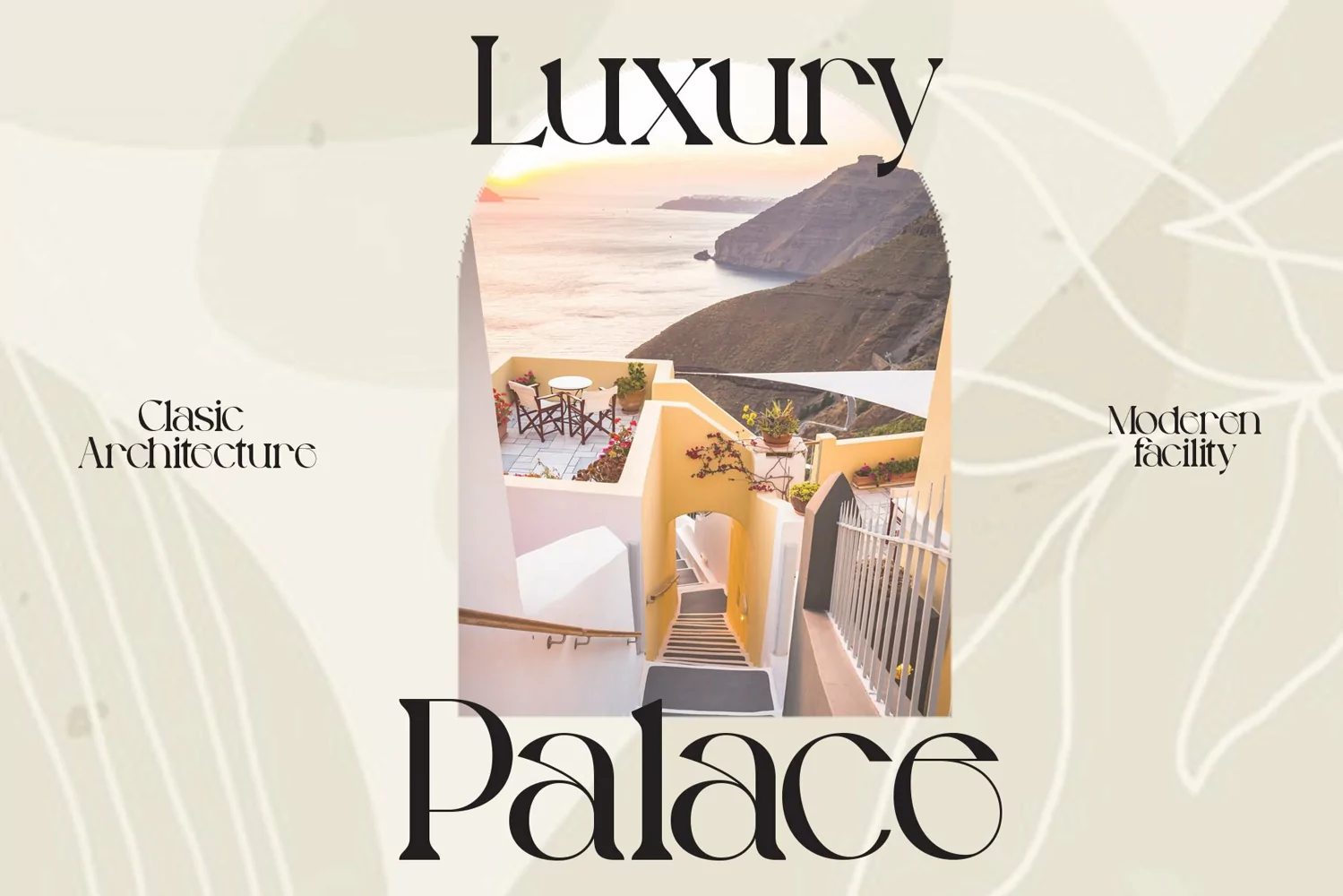
Morgenwalsh
**Morgenwalsh Font**
This pair was inspired by the elegance vintage poster design that i saw on some coffee shop, It was crafted by hand specially to add natural handmade feeling in its brand identity than i make it clean with pentool.
Morgenwalsh font has 207 character set included
Morgenwalsh Font is very good looking in logo, labels, product packaging, invitations, advertising and others.